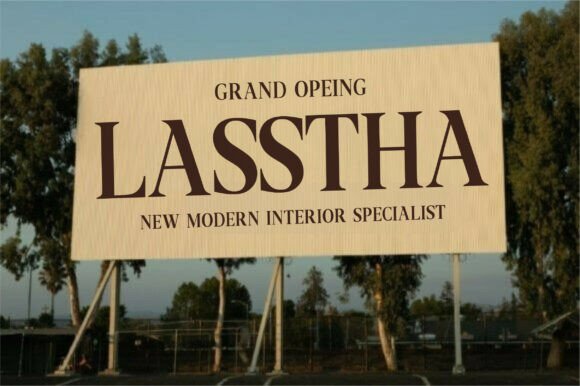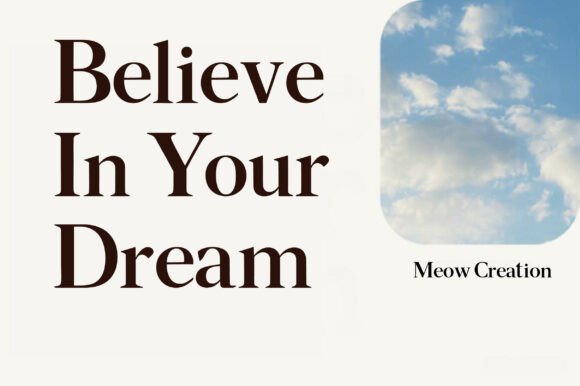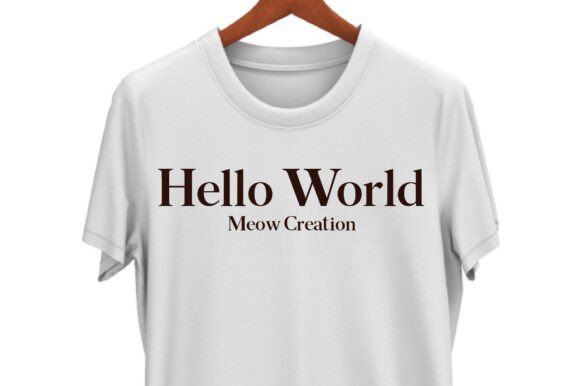
Introduction to Lioris Font
LIORIS is a refined serif typeface that blends classic elegance with modern sophistication.
Featuring balanced proportions, smooth bracketed serifs, and strong contrast, itโs perfect for branding, logos, fashion, editorial layouts, packaging, and stylish quotes Timeless, clean, and confidently elegant.